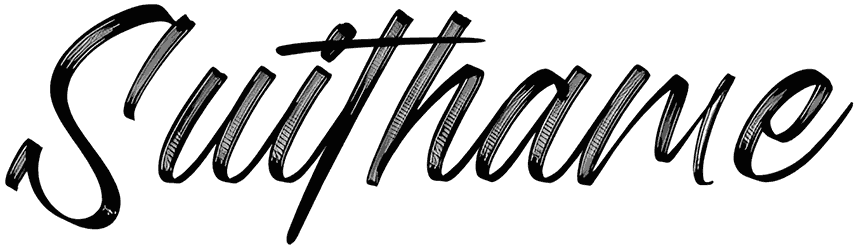
Soda Berry Font
Your design will have an urban and cool visual if you set this unique brush font on its words. The characters seem to be painted by hand, and it’s gonna cause a natural vibe for your design. The Soda Berry font is a perfect item for many designs, such as a beach restaurant sign or whatever you want.
Designed by: Invasi Typework